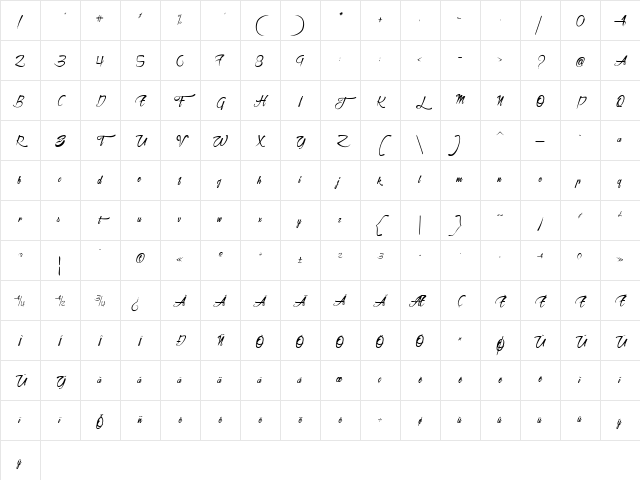
Complete Atelier du Machiniste Italic glyph index. Displaying only characters natively supported by Atelier du Machiniste Italic font.
Atelier du Machiniste is a composed and adaptable typeface that performs quietly and consistently across a wide range of design contexts. The slanted form adds forward momentum and visual energy.
Pro Tip: Use Atelier du Machiniste for emphasis, pull quotes, and subheadings where its slanted energy can add rhythm to the layout.